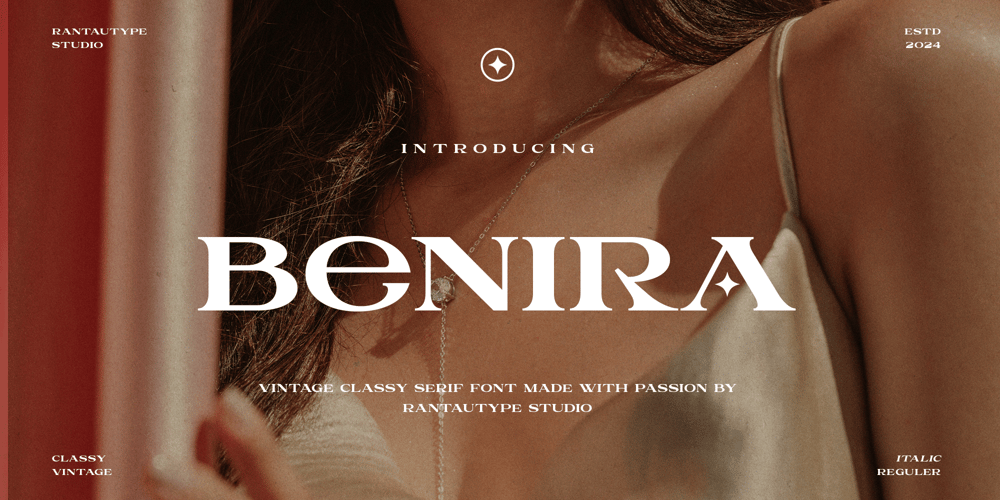
Benira
Benira font
Benira Font Family was designed by Yudi Pratama Chandra and published by RantauType. Benira contains 2 styles and family package options. Benira is vintage classy font with wide aesthetic sharp essence of the elegant fashion. Benira is a perfectly choice for any creative endeavor, chic, lifestyle design such as logos, advertisements, stationery, branding project, display and magazine, invitation, corporate brand, product design, label, business project and many other project with elegant touch.What you have: Standart Glyphs Numberial and Functional Ligature and alternate Works on PC & Mac Simple installations Accessible in Adobe Illustrator, Adobe Photoshop, Adobe InDesign, even work on Microsoft Word. Fonts include multilingual support for: Afrikaans, Albanian, Basque, Bemba, Bena, Breton, Catalan, Chiga, Cornish, Danish, Dutch, English, Estonian, Filipino, Finnish, French, Galician, German, Icelandic, Indonesian, Irish, Italian, Kinyarwanda, Luxembourgish, North, Norwegian, Portuguese, Romansh, Rombo, Rundi, Scottish, Gaelic, Sena, Shambala, Shona, Soga, Somali, Spanish, Swahili, Swedish, Swiss, German.Thank you for your purchase!Hope you enjoy with our font!